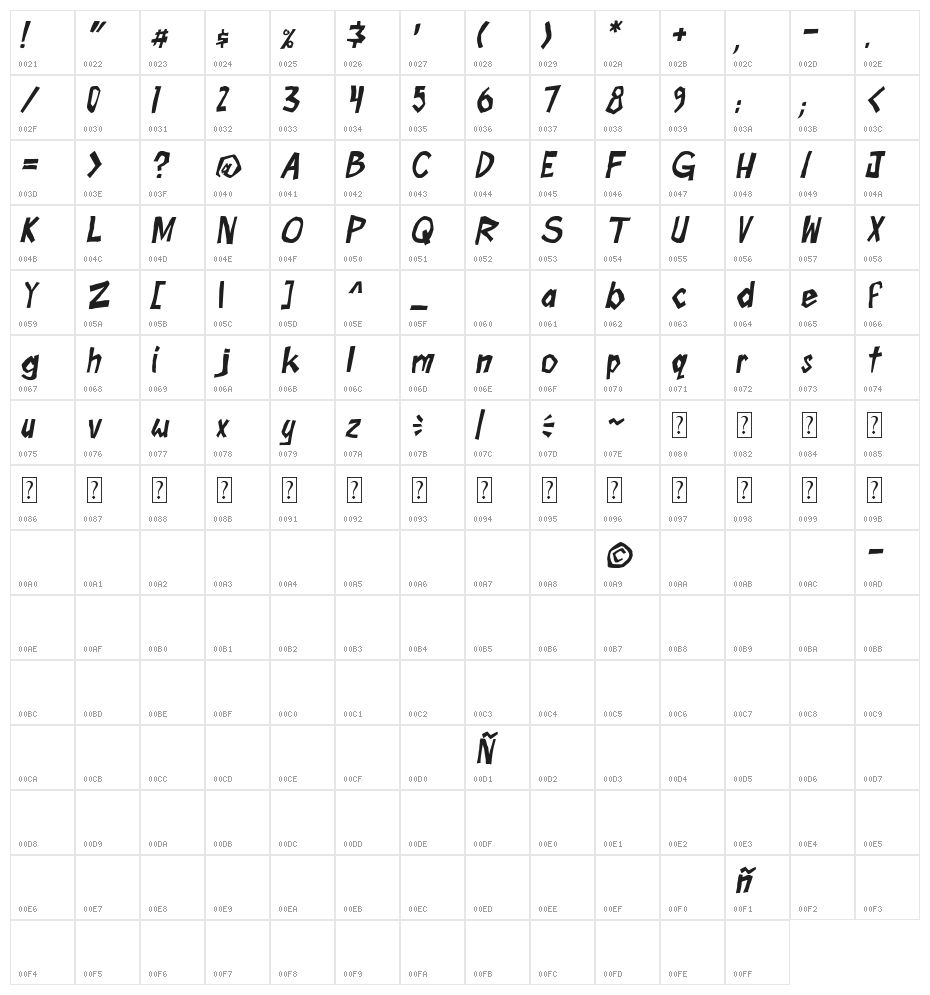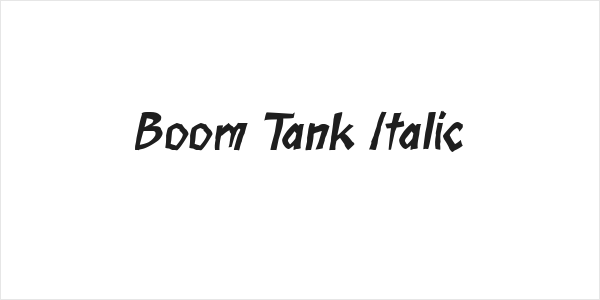
Boom Tank Italic Font
Boom Tank Italic Description
This font exhibits a bold and dynamic style with an italic slant, giving it a sense of movement and energy. The characters are sharply angled and have a hand-drawn appearance, which adds a unique, edgy feel. The uppercase and lowercase letters maintain a consistent style, with exaggerated curves and sharp edges that create a striking visual impact. The numbers and special characters follow the same design principles, ensuring uniformity across all glyphs. This font's distinctive style makes it stand out, perfect for projects that require a bold statement.
| Proposed Projects | Ideal for posters, branding, and any design that needs a bold, energetic touch. |